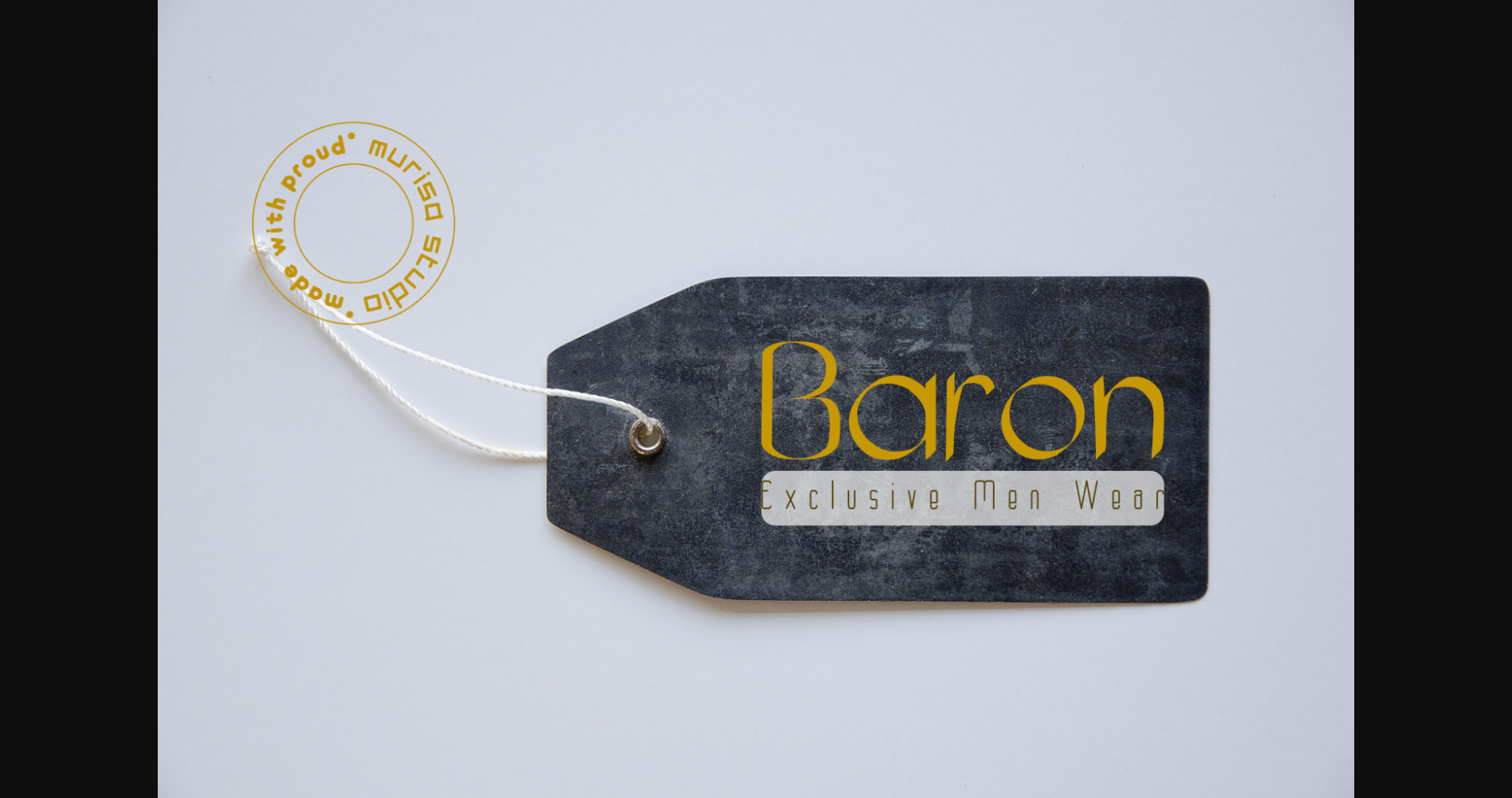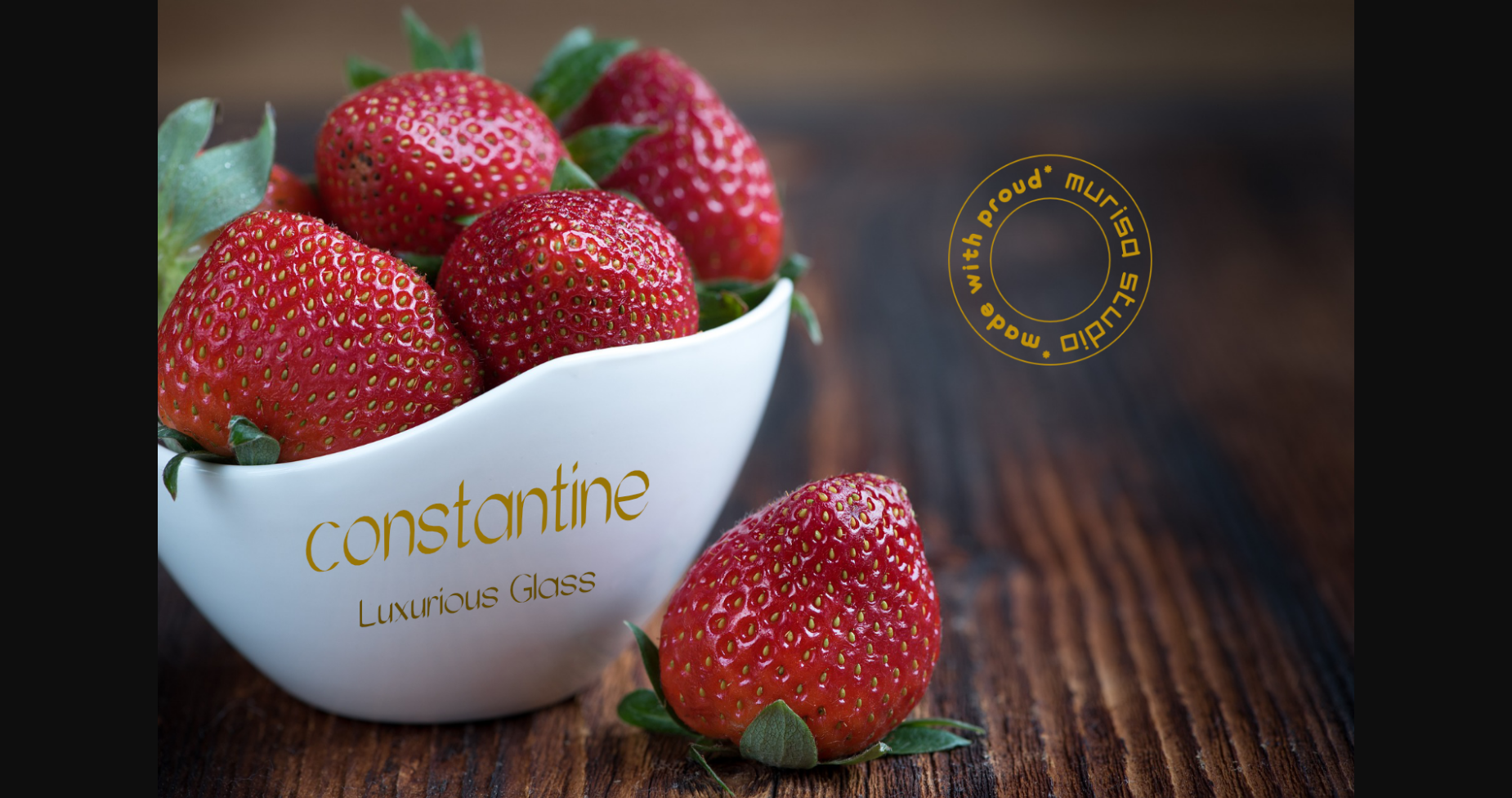
About Murisa Valeria Font
Murisa Valeria is a beautiful and attractive font inspired by calligraphy strokes in the Middle East. Murisa Valeria is a beautiful sans-serif font with a deep artistic effect. Grab this perfect font and add it to quotes, book covers, social media posts, fashion posters, and more.